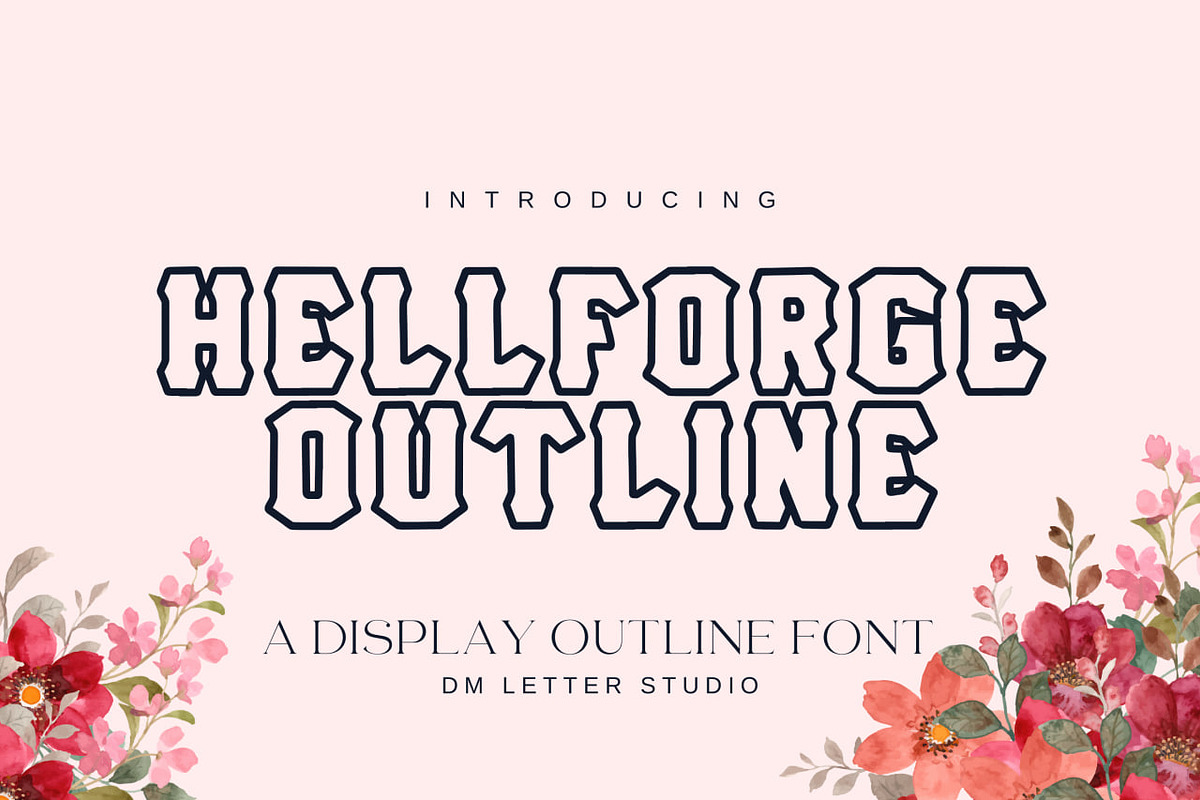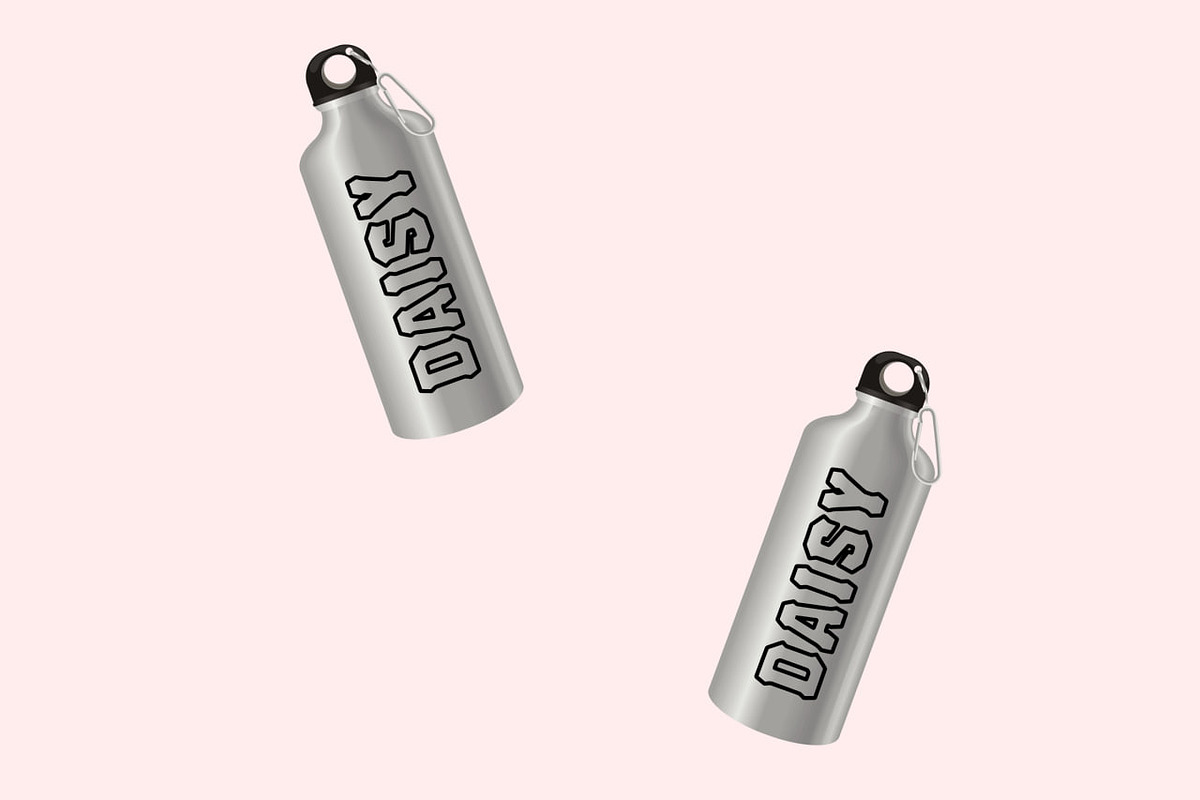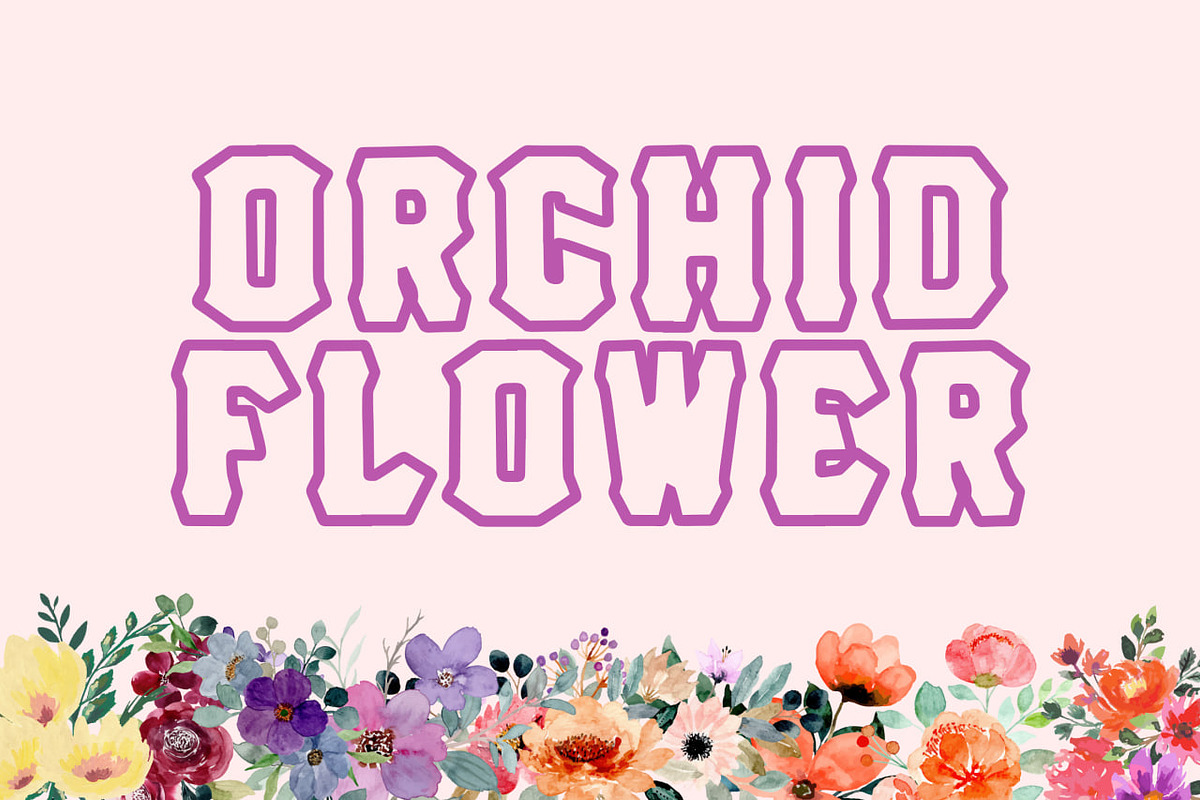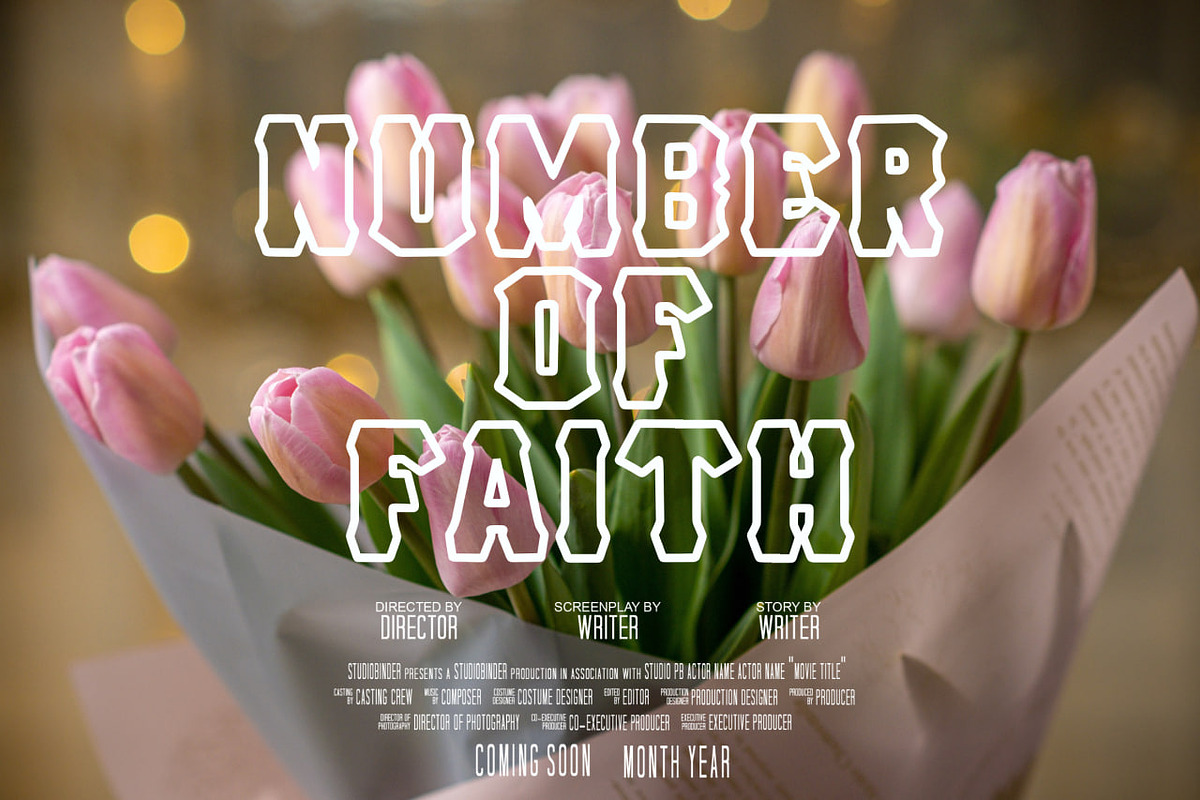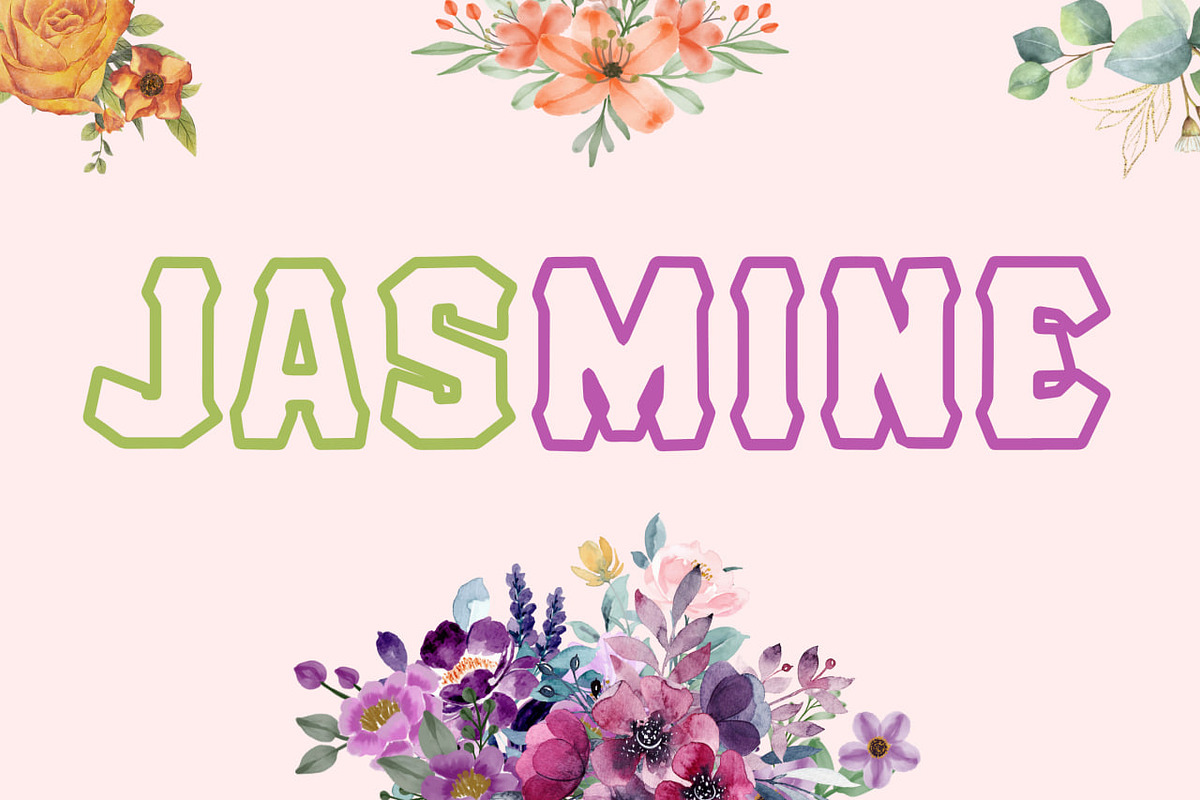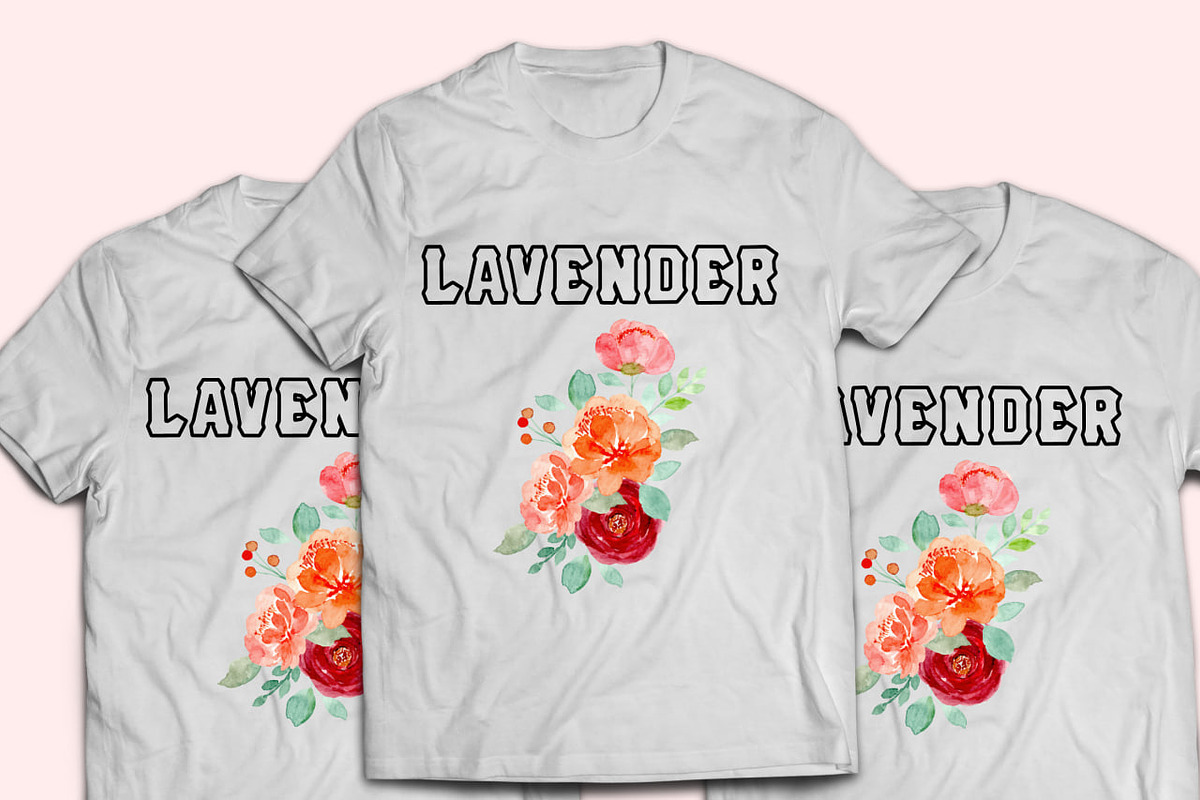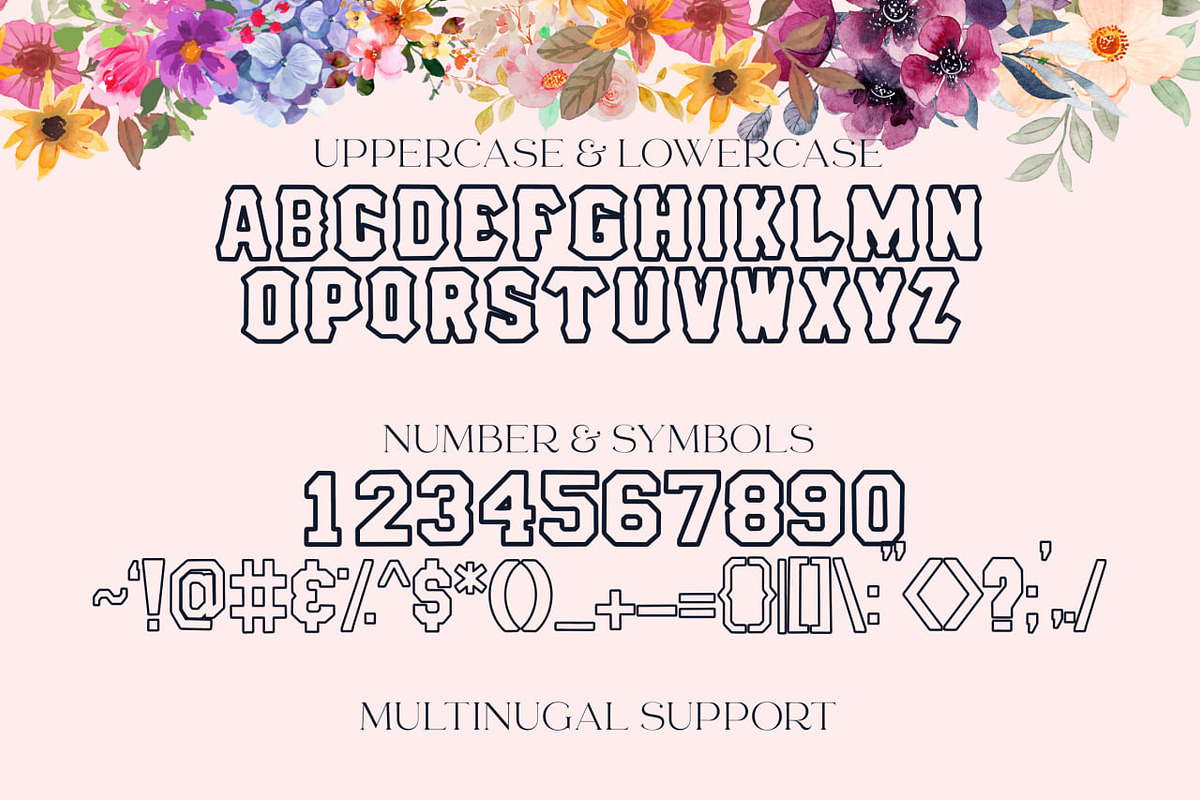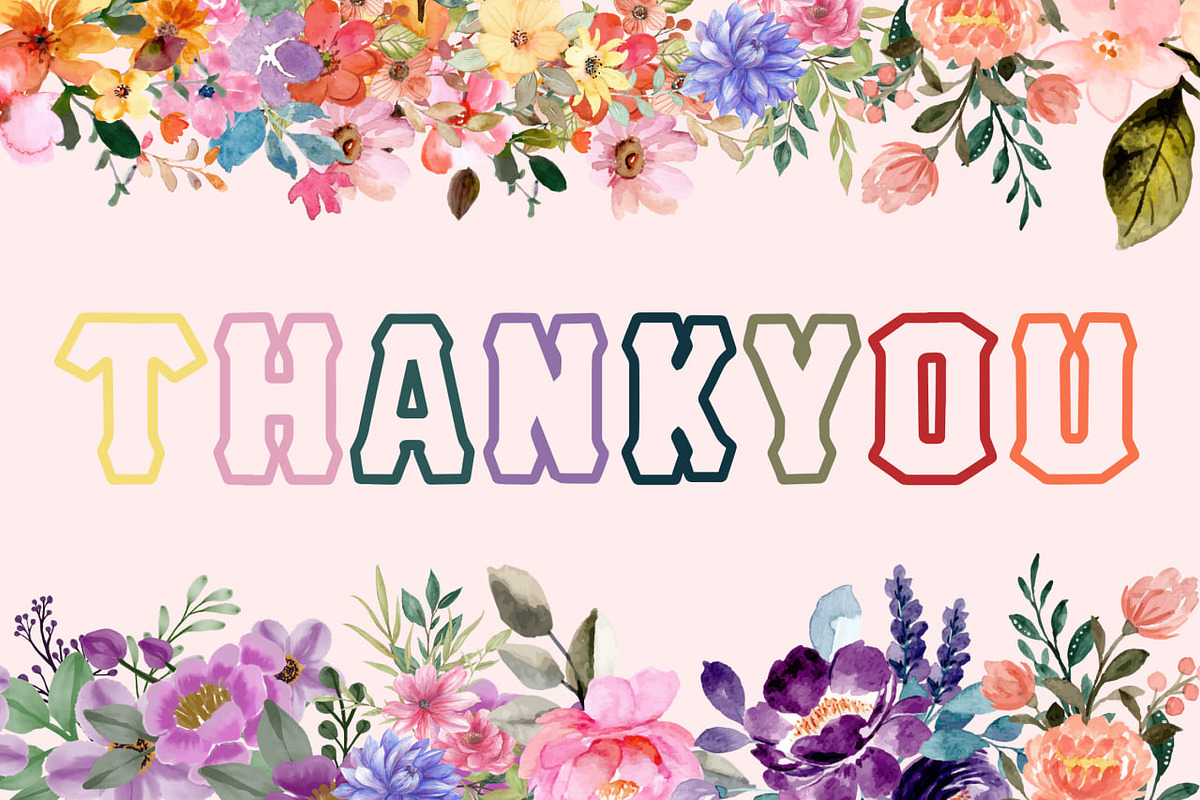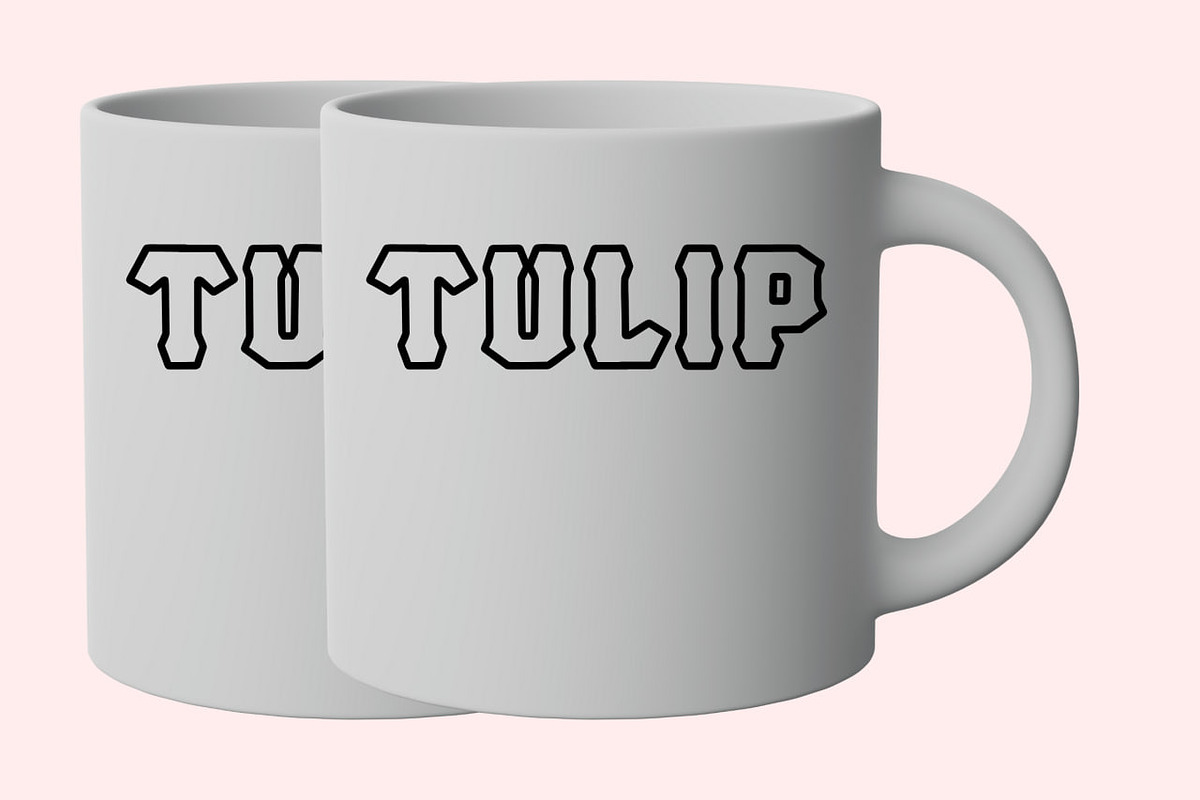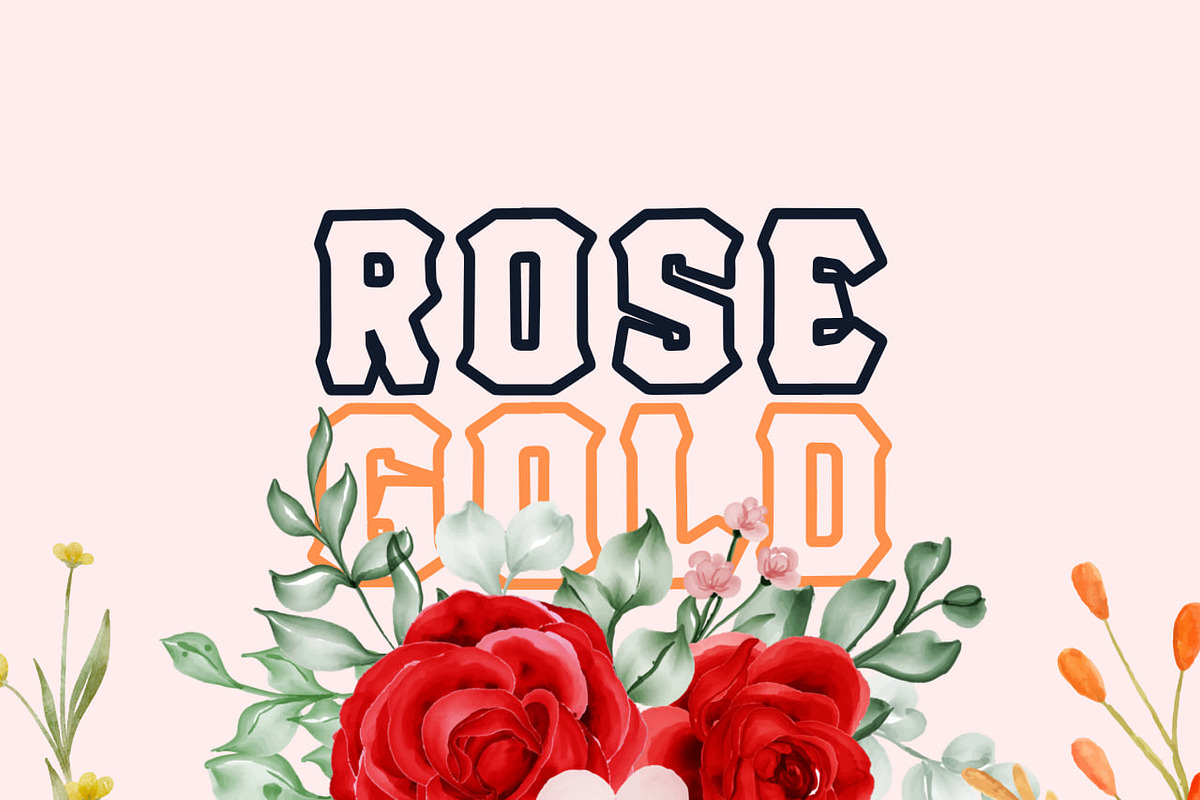
Hell Forge Outline
Meet Hell Forge Outline, the Display Font
Hell Forge Outline is a bold outline display font with a forged, heavy attitude. It keeps the strong Hell Forge character, but the open outline style adds a modern edge and makes layouts feel lighter and more graphic. The shapes are sharp, confident, and built for impact, especially in logos and big headlines. Use Hell Forge Outline for streetwear, sports graphics, badges, posters, packaging, and merch designs. As a result, your typography looks tough, stylish, and instantly eye-catching.
Fast layouts with the Hell Forge Outline Font
Start with short words or initials and let the outline do the work. After that, fill the inside with a solid color, subtle texture, or a simple pattern. Because outlines can get thin at small sizes, keep it for headlines, logos, and large prints. In addition, it looks great with badge shapes, shields, circles, and banner ribbons. Finally, save palettes like black and white, charcoal and steel, red and black, or tan and black for quick, rugged designs.
Creative uses and quick wins
- Streetwear logos, patches, and merch drops
- Sports team graphics, badges, and tournament posters
- YouTube thumbnails, album covers, and event flyers
- Packaging marks for coffee, hot sauce, tools, and lifestyle goods
Design tips for Hell Forge Outline
Use Hell Forge Outline as the hero font and keep supporting text clean. Also, avoid using it too small, since outline strokes need room to stay crisp. For print, export at 300 DPI and test a small sample before vinyl cutting or embroidery. For digital, scale up slightly so the outline stays sharp on mobile. Finally, if you want extra punch, add a second layer behind it for a shadow or inline effect.